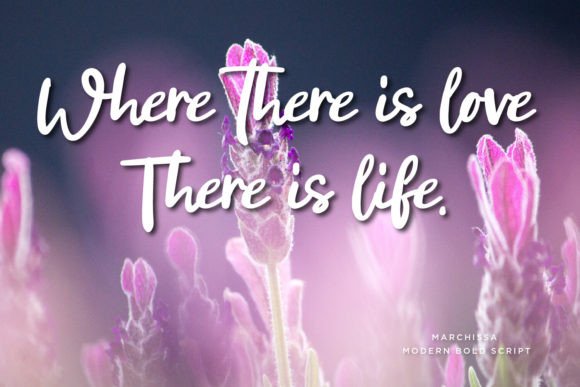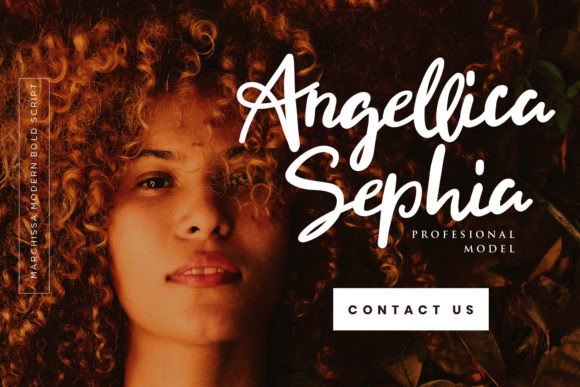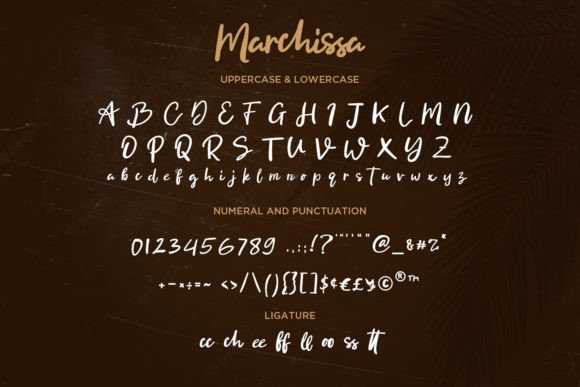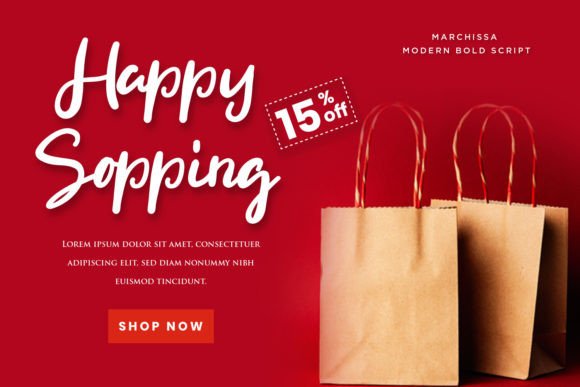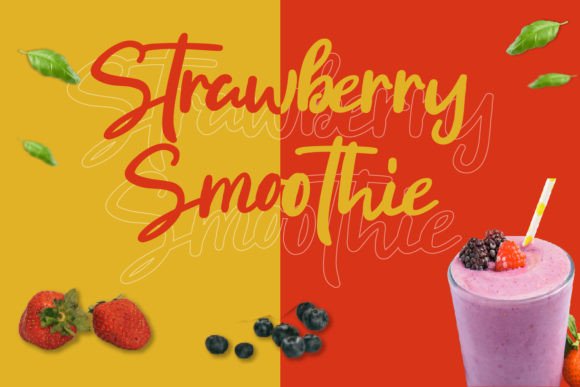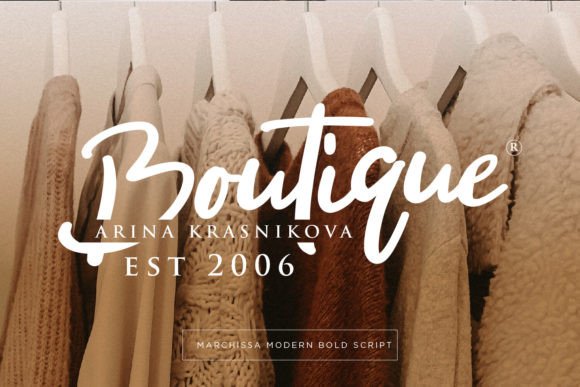
Introduction to Marchissa Font
Have you ever been working on a creative project, pouring your heart and soul into it, only to feel like something’s missing? You know, that perfect finishing touch that sets your design apart from the rest? That’s where the Marchissa Font comes in – a beautiful, handwritten script font that’s sure to elevate your work to new heights.
As a designer, you know how hard it can be to find the perfect font to match your vision. That’s why we’re excited to introduce you to the Marchissa Font, a high-quality design resource that’s perfect for branding, promotional ads, quote design, and much more. With its unique, handwritten style, this font is sure to add a touch of elegance and sophistication to any project.
Key Features of Marchissa Font
- High-quality design resource ideal for creative projects, offering a unique and elegant aesthetic.
- Perfect for designers seeking a high-quality, versatile font to elevate their creative projects.
Honest Review: Marchissa Font
As a designer, I’m always on the lookout for high-quality design resources that can elevate my creative projects. The Marchissa Font is one such resource that caught my attention.
Here are some things that work well with the Marchissa Font: ✨
- Unique and elegant script design
- Perfect for wedding invitations, baby announcements, or any other special occasion
- High quality, scalable vector graphics
Overall, I’m impressed with the Marchissa Font’s design and versatility. While it may have some limitations, it’s still a valuable resource for designers working on creative projects. With a free download available, it’s definitely worth checking out if you’re looking for a high-quality script font.
Tips for Getting the Most Out of Marchissa Font
Use the Marchissa Font on a transparent background to add a touch of elegance to your design.
Combine the Marchissa Font with high-quality images to create a visually appealing design.
The Marchissa Font is perfect for creative projects such as wedding invitations, business cards, and social media graphics.
It’s also great for designing presentations, reports, and other documents that require a touch of sophistication.
Alternatives to Marchissa Font
Great Vibes Font is a beautiful script font perfect for creative projects that require a personal touch. It’s ideal for designing invitations, wedding cards, or any other project where a elegant and refined look is desired. Great Vibes Font has a high quality design and is suitable for use on a transparent background. When to use: wedding invitations, birthday cards, or any project where a handwritten feel is needed.
Compared to Marchissa Font, Great Vibes Font has a more elegant and refined design, making it perfect for formal events or high-end projects.
Pacifico Font is a beautiful, elegant script font that is perfect for creating a sophisticated look in any design project. It’s ideal for use in logos, branding, or any other project where a high quality, professional look is desired. Pacifico Font has a high quality design and is suitable for use on a transparent background. When to use: logos, branding, or any project where a professional look is needed.
Compared to Marchissa Font, Pacifico Font has a more elegant and refined design, making it perfect for formal events or high-end projects.
Q: Does Marchissa Font have a transparent background?
Marchissa Font is a vector-based font, which means it doesn’t have a background image. You can easily edit and customize the font to fit your design needs without worrying about background transparency.